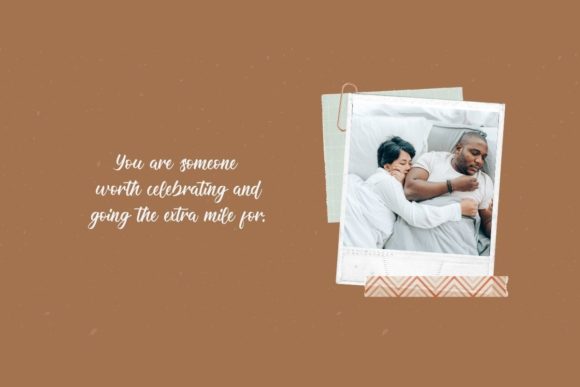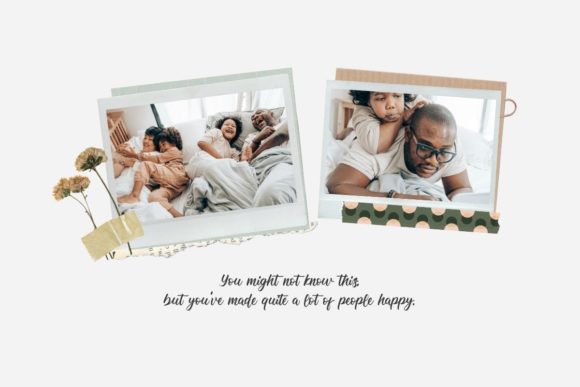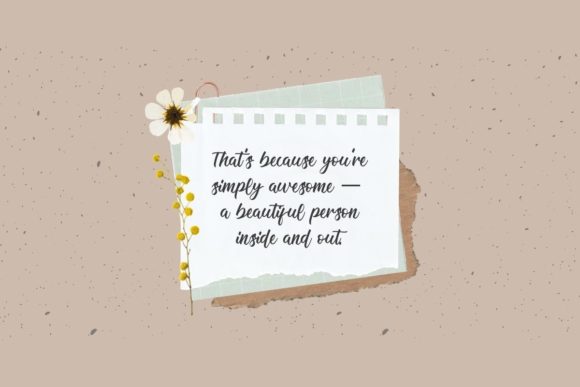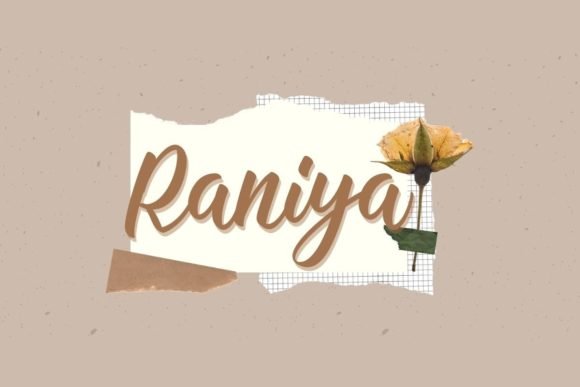
Introduction to Raniya Font
Raniya is a sweet and cursive handwritten font.
This gentle font will look gorgeous on a variety of design ideas It will add a joyful and romantic touch to each of your projects.
Raniya Font offers exceptional quality and versatility, making it a valuable addition to your design toolkit. Whether you’re creating for personal projects or commercial use, Raniya Font delivers professional results.